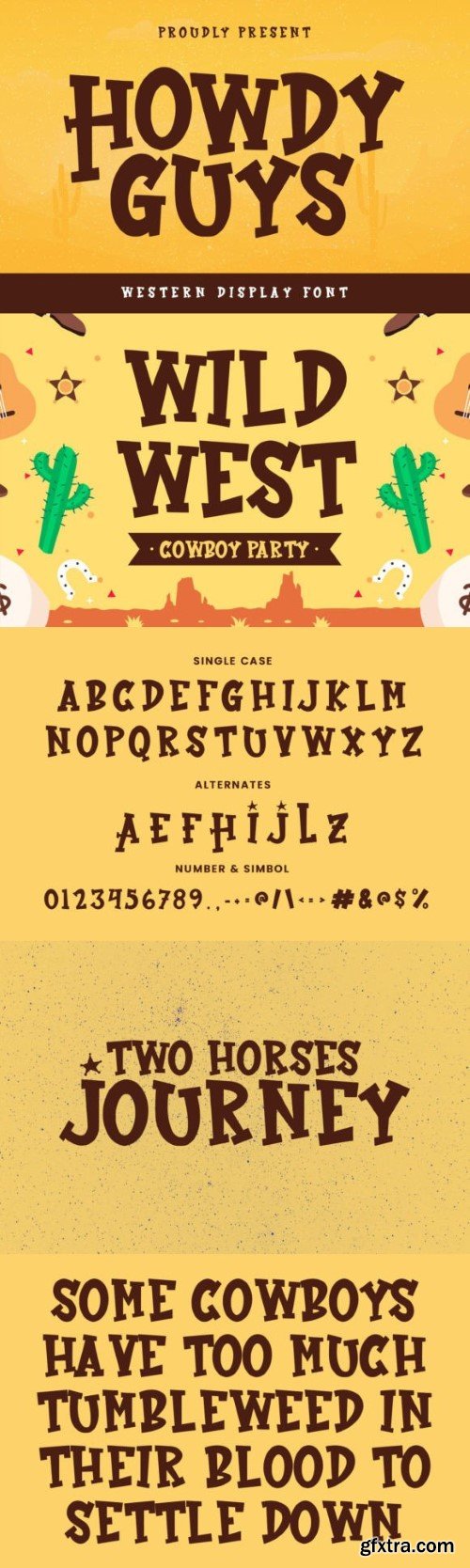
你好 guys 字体
Howdy Guys is a unique and interesting Western display font. A little bit quirky, this font looks incredibly adept on a wide variety of contexts!